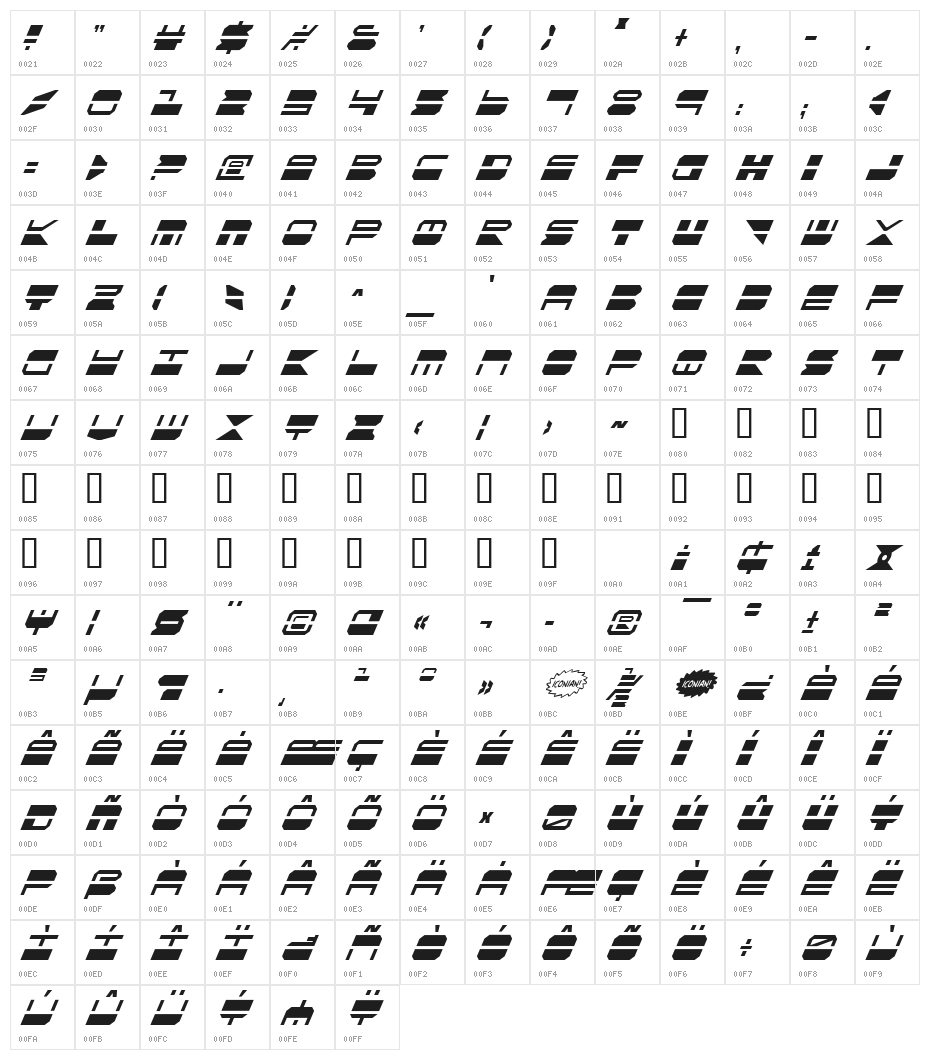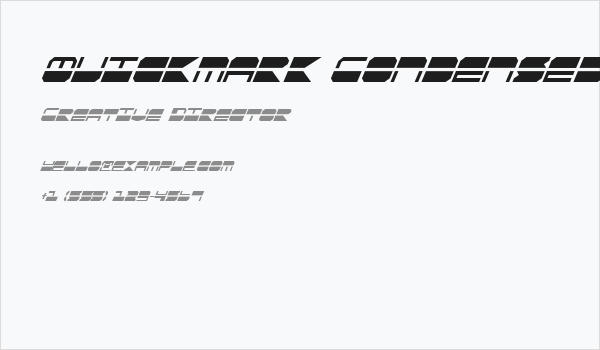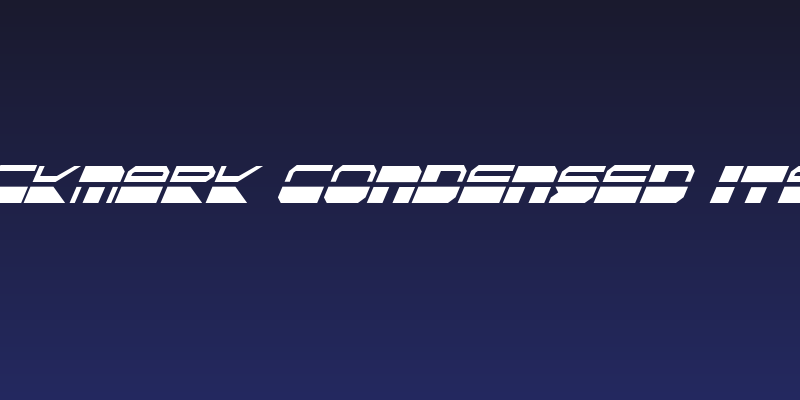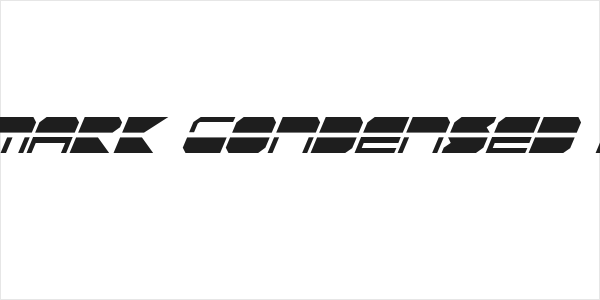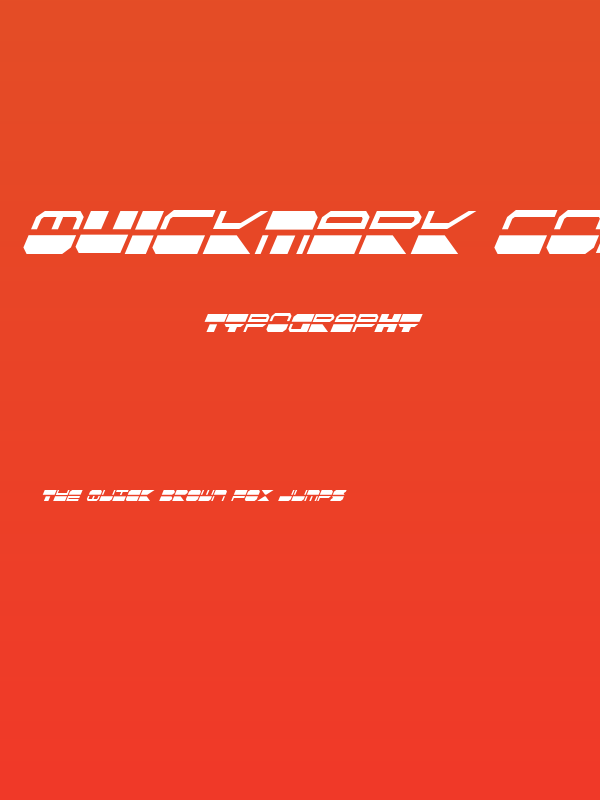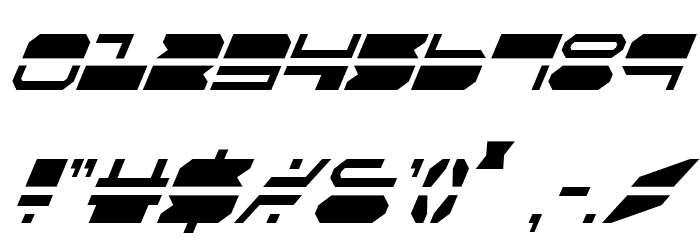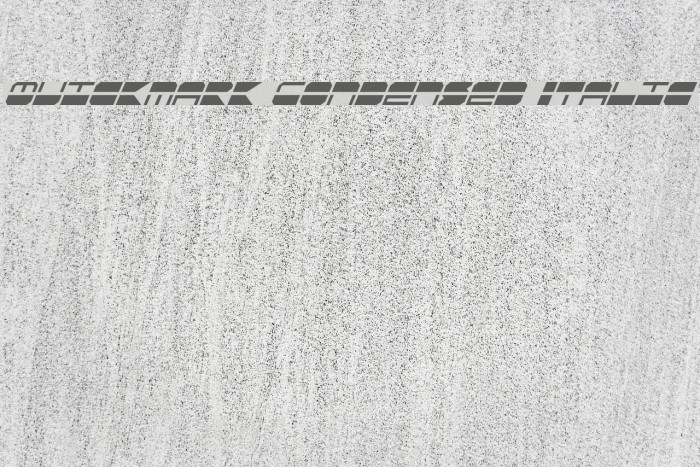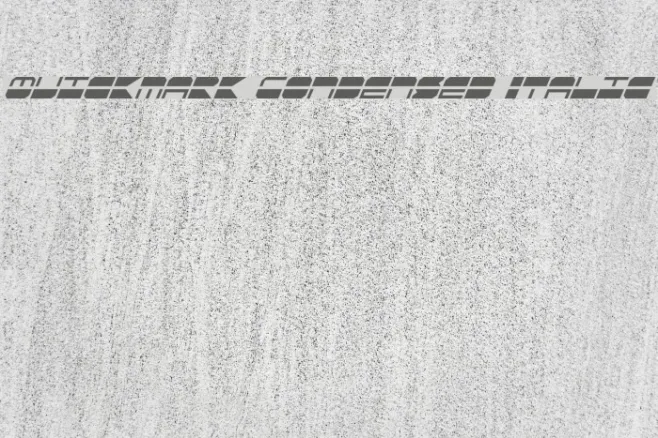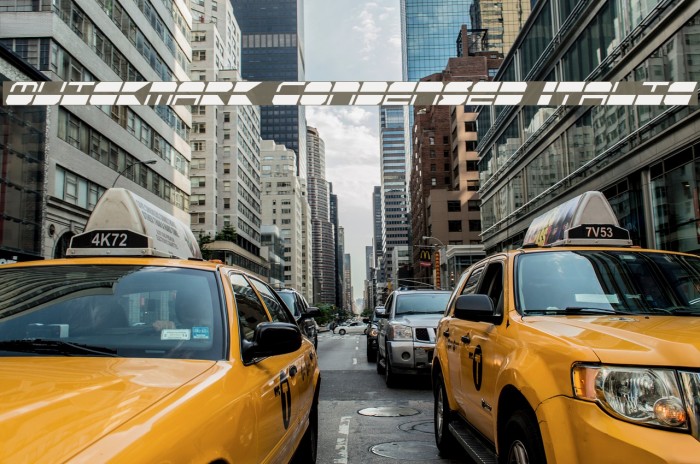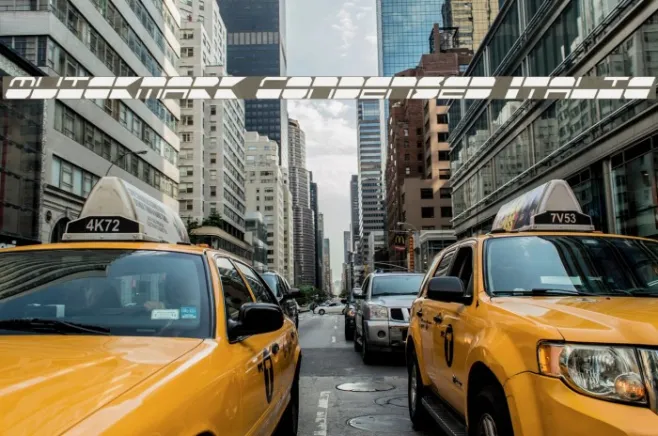
Quickmark Condensed Italic Font
Quickmark Condensed Italic Description
This font features a futuristic and dynamic design with a strong emphasis on angular shapes and sharp edges. The characters are condensed and italicized, giving a sense of motion and speed. The bold strokes and geometric forms create a striking visual impact, making it suitable for attention-grabbing designs. The uppercase and lowercase letters maintain a consistent style, with unique cuts and slants that enhance the overall aesthetic. The numerals and special characters follow the same design principles, ensuring uniformity across all glyphs.
| Proposed Projects | Ideal for sci-fi themed projects, technology branding, video game titles, and dynamic posters. |